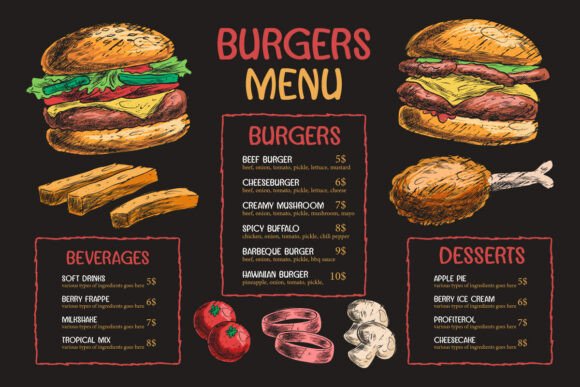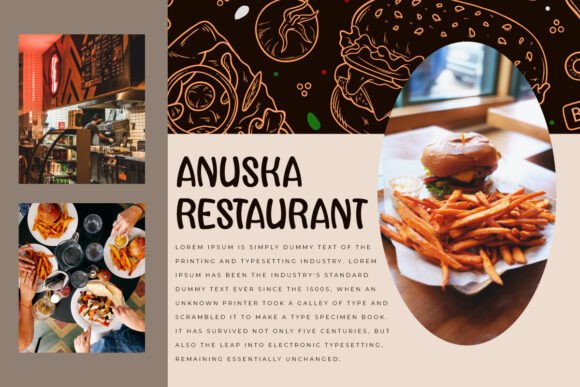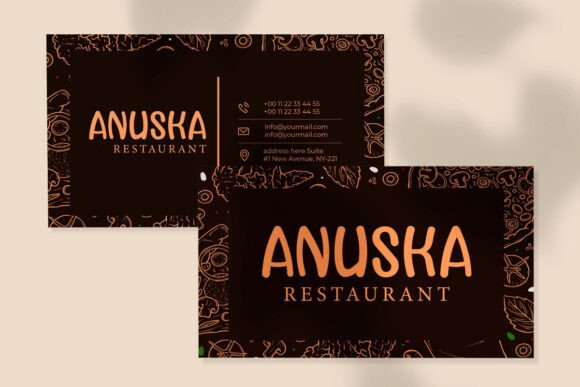
Caramel Burger Font
Caramel Burger Font is a fancy and unique display typeface inspired by delicious menus. With its distinctive character, this font will give your project a special flair. Depending on how it’s used, it can also deliver a clean and simple design aesthetic. It’s suitable for a wide range of industries, including accessories, advertising, cafés, entertainment, event planning, fashion, kids’ products, marketing materials, photography, printing, publishing, restaurants, writing, and more.Caramel Burger Font includes a full set of ALL CAPS for both uppercase and lowercase basic characters, numbers, a wide range of punctuation marks, and symbols. It features a sophisticated character set, carefully crafted with proper spacing and kerning. This font is perfect for enhancing various design needs such as branding, book covers, custom designs, labels, menu boards, merchandise, packaging, posters, quotes, screen prints, signage, stationery, stickers, titles, websites, and more.